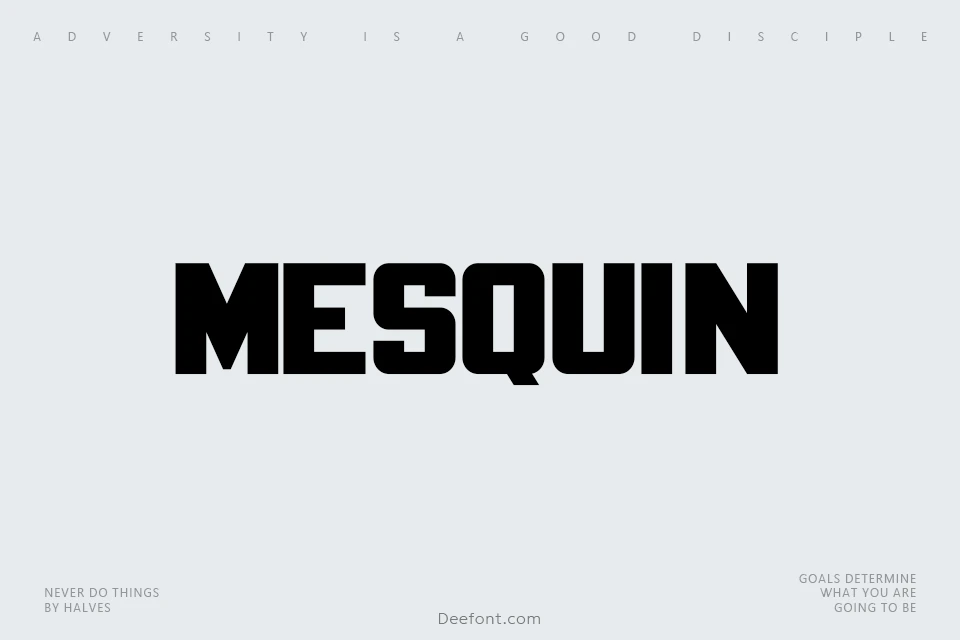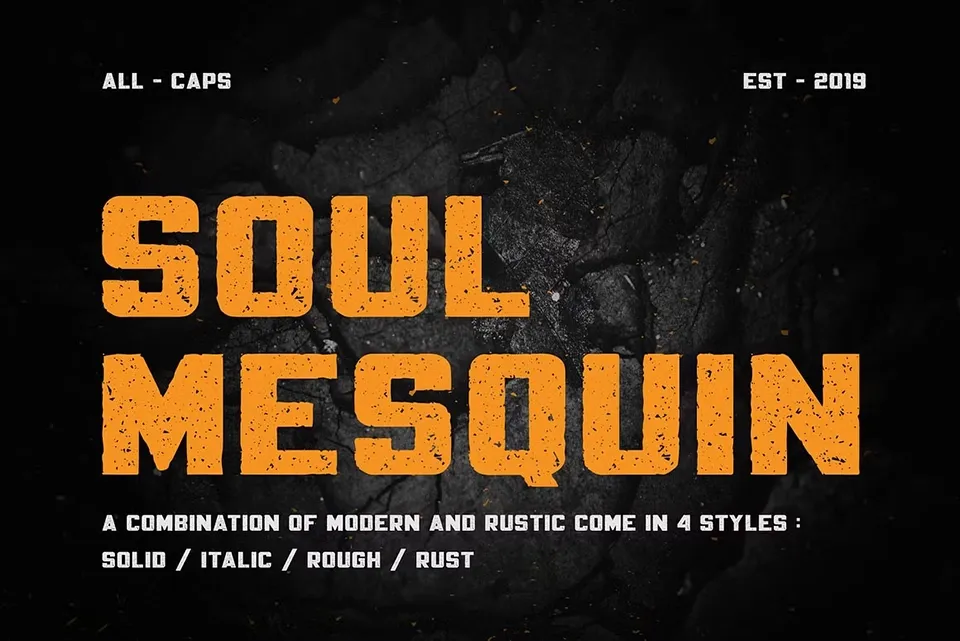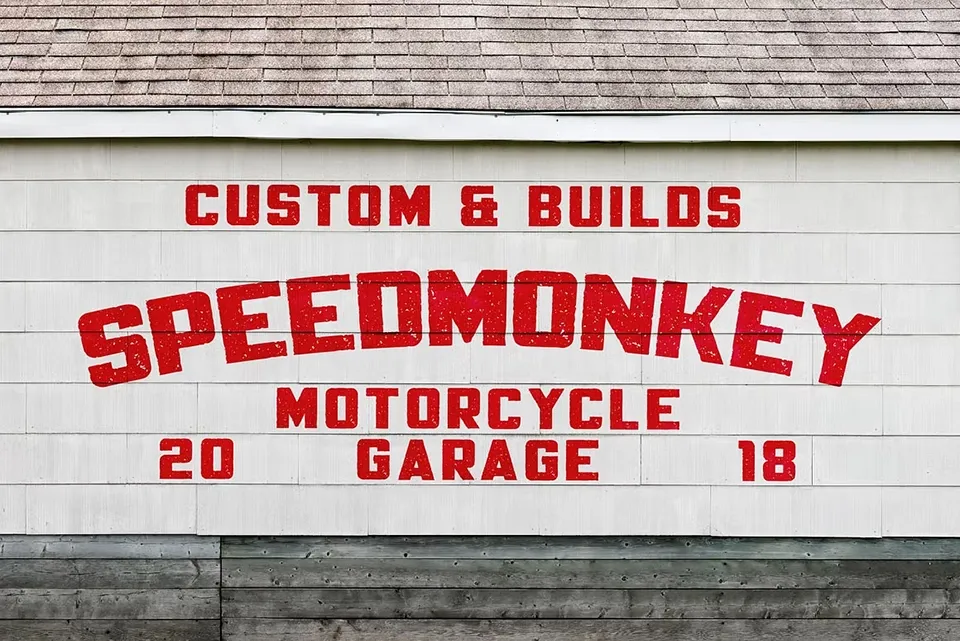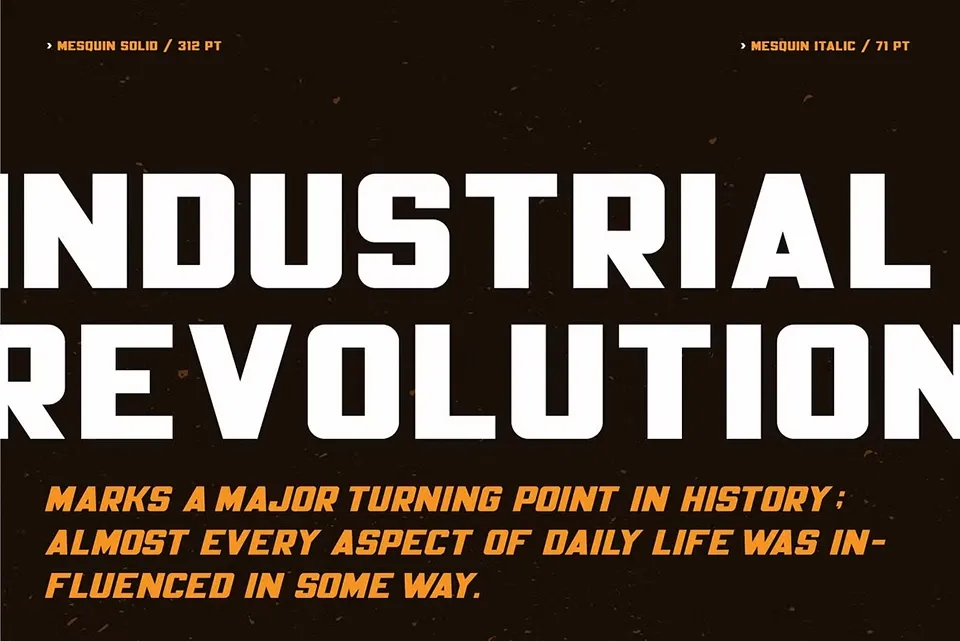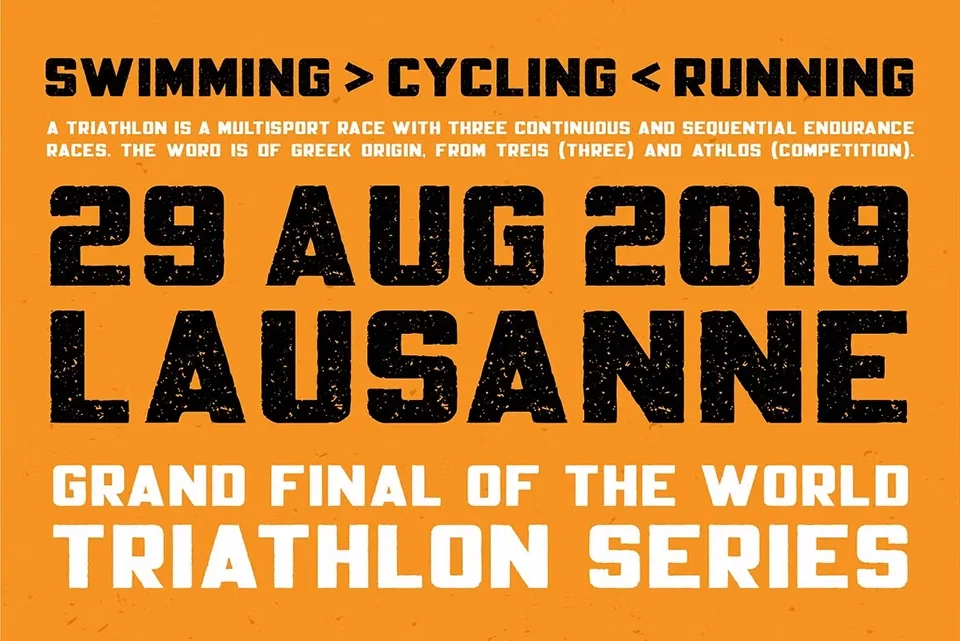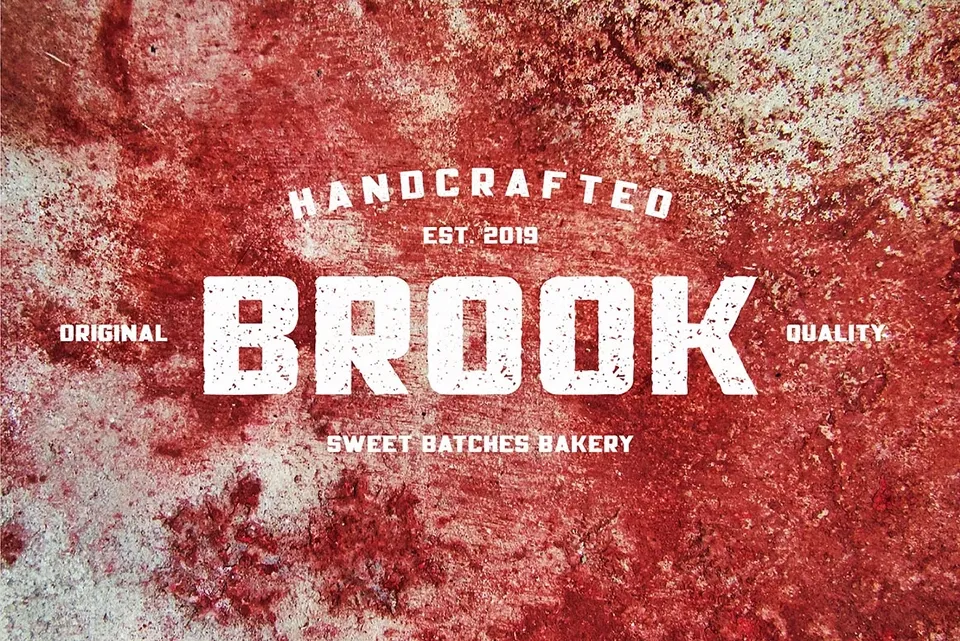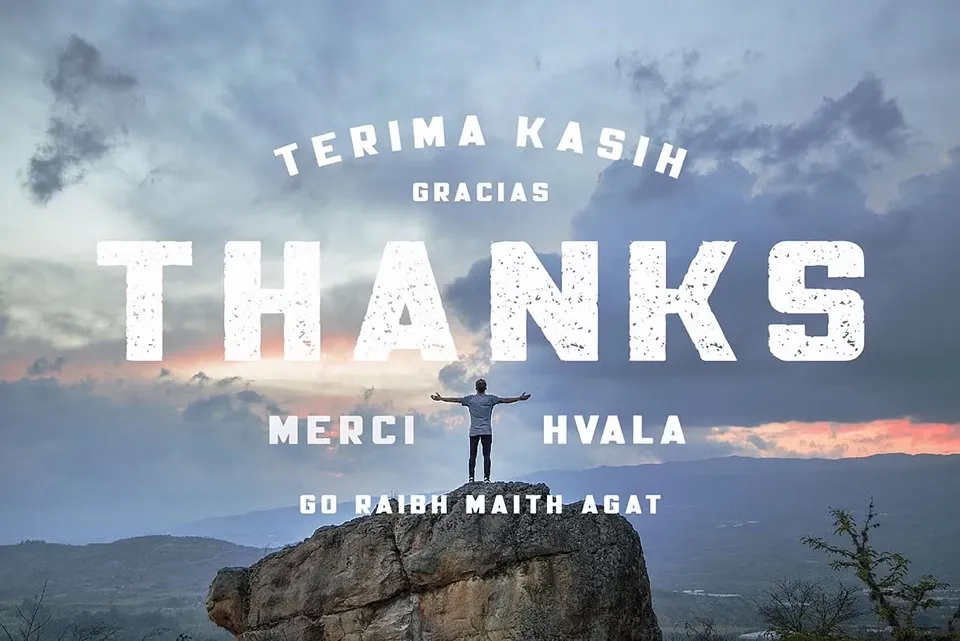
Mesquin Font
Mesquin Font is an all-uppercase sans serif typeface featuring bold geometric characters and a rugged, industrial-inspired look. It comes in four distinct styles-Solid, Italic, Rough, and Rust-making it ideal for modern designs that require a blend of contemporary and rustic aesthetics. The font supports a wide range of creative applications, from branding and posters to digital graphics, and is designed to deliver a strong visual impact.
Designed by:Muhammad Hasan (MuSan)Website